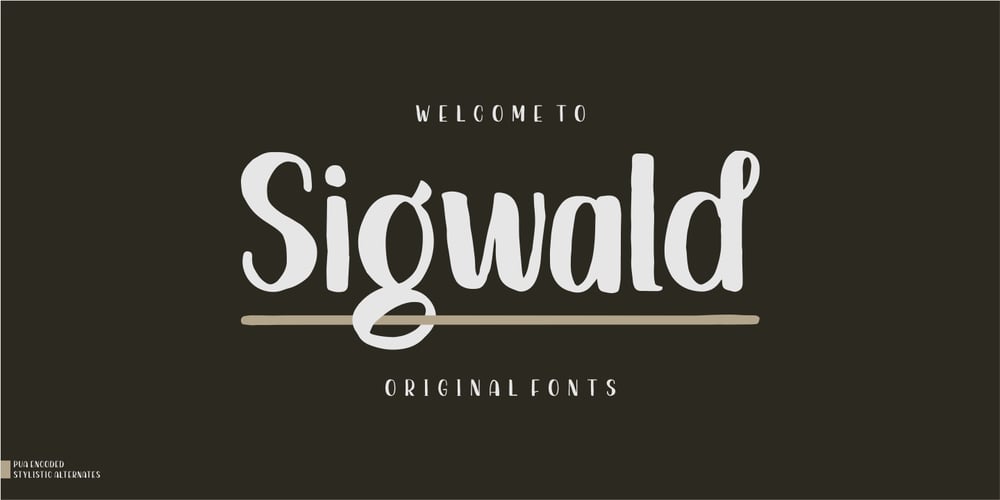
Sigwald Font Family was designed by Good Java and published by Good Java Studio. Sigwald contains 1 styles and family package options. Sigwald is born from bold and fun style fonts. That’s available on other file from letter A-Z and a-z. Versatile for design poster, logo, branding, label, quote, headline profil, banner, t-shirt design, packaging, magazine, brochure, and many more your amazing work with this fonts. Features: – Included file: Sigwald Regular (OTF) – Simple installation – Support for MAC and PC – PUA encoded – Stylistic Alternates